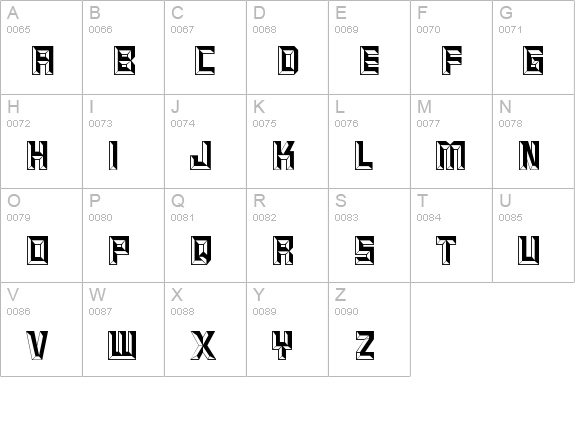
Beveled Font Details
Introducing Beveled font, a stunning typeface that effortlessly combines sophistication with a touch of vintage charm. With its unique beveled edges and meticulous attention to detail, this font is perfect for adding a touch of elegance to any design project. Beveled font features a wide range of uppercase and lowercase letters, as well as numerals and punctuation marks, allowing you to create captivating typography that stands out from the crowd. Its clean lines and carefully crafted curves give each character a sense of balance and harmony, making it a versatile choice for a variety of design applications. Whether you're working on a logo, branding materials, invitations, posters, or any other creative endeavor, Beveled font will elevate your designs to new heights. Its classic yet modern aesthetic will add a touch of sophistication and professionalism to any project, making it a must-have for designers and creatives alike. The best part? Beveled font is available for free download exclusively at FontsMarket.com. By offering this font freely, we aim to empower designers and creatives to bring their visions to life without any limitations. So go ahead and unleash your creativity with the help of Beveled font. Download it today and discover a world of possibilities for your next design project.